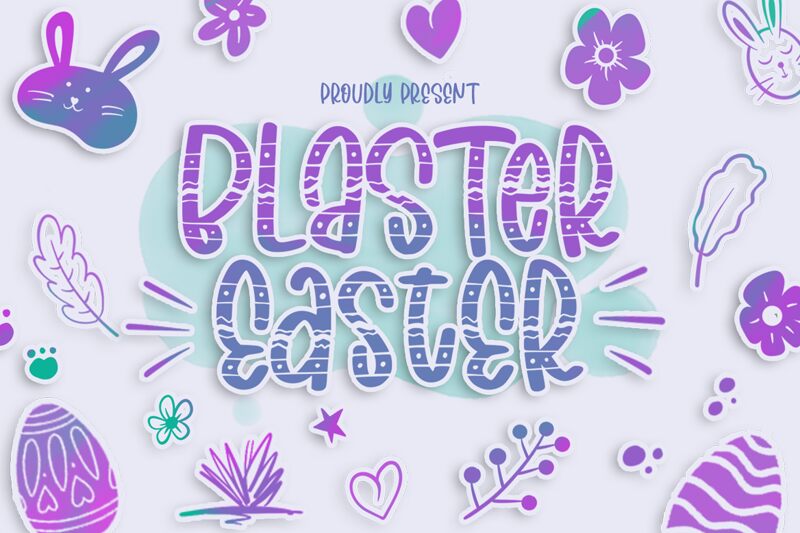
Blaster Easter Ornament
Blaster Easter Ornament, the latest script font designed by Rochart Studio, is the perfect addition to any Easter project. Its condensed width and playful easter style make it ideal for creating eye-catching invitations, greeting cards, and other festive designs. Whether you're looking to add a touch of whimsy to your springtime branding or create unique decorations for your Easter celebration, Blaster Easter Ornament has got you covered. With its semi-bold font weight and easy-to-read lettering, this font is sure to make a statement in any project where condensed fonts are needed. Get creative and give your designs a fresh new look with Blaster Easter Ornament!